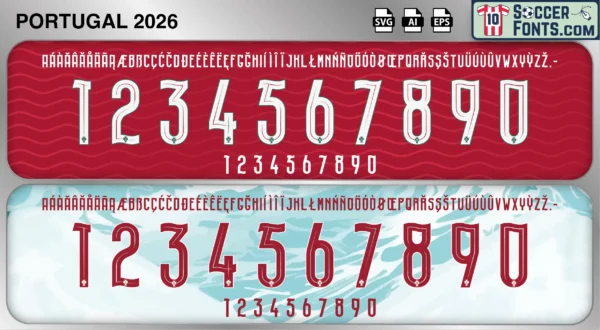
Portugal 2026 World Cup Font
The Portugal 2026 World Cup font is an editable soccer jersey lettering design in vector format inspired by the Portugal kit style used during the 2026 FIFA World Cup. This football font artwork is prepared for football shirt recreations, custom jersey projects, football kit mockups and sports graphic design workflows.
The 2026 FIFA World Cup provides Portugal with another opportunity to compete for football’s most prestigious international trophy. Hosted across the United States, Canada and Mexico, the tournament brings together an expanded field of nations and creates a global stage for one of Europe’s strongest football programs. Portugal is expected to arrive with a squad featuring many of the players who have helped the country remain among the continent’s elite, including Bruno Fernandes, Bernardo Silva, Rúben Dias, Vitinha, Rafael Leão and other members of a highly talented generation. The competition represents another chance for Portugal to build on decades of progress that transformed the nation into a regular contender at major tournaments.
The Portugal 2026 World Cup font became associated with Portugal’s tournament identity during a World Cup era filled with ambition and expectation. Since reaching the semi-finals of the 1966 World Cup and later winning UEFA EURO 2016, Portugal has consistently established itself among the leading forces in international football. The nation’s football culture continues to be shaped by technical excellence, passionate support and a remarkable ability to develop elite players across generations. Portugal shirts from the 2026 World Cup cycle are expected to become highly collectible among football shirt enthusiasts, kit historians and supporters following the latest chapter in the country’s international journey. The Portugal 2026 World Cup font reflects the continuation of a football tradition that remains one of the most respected in the modern game.